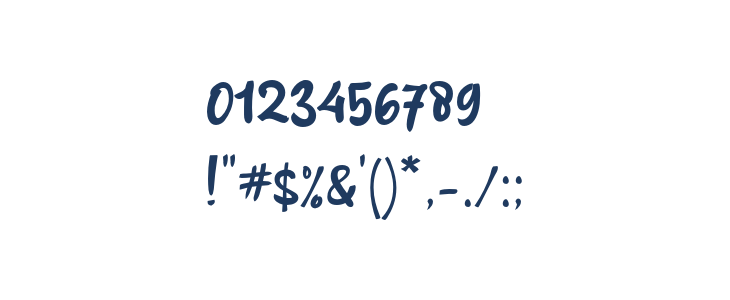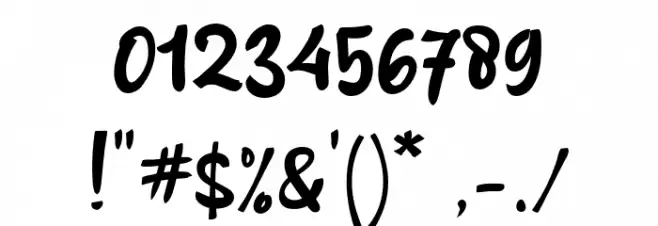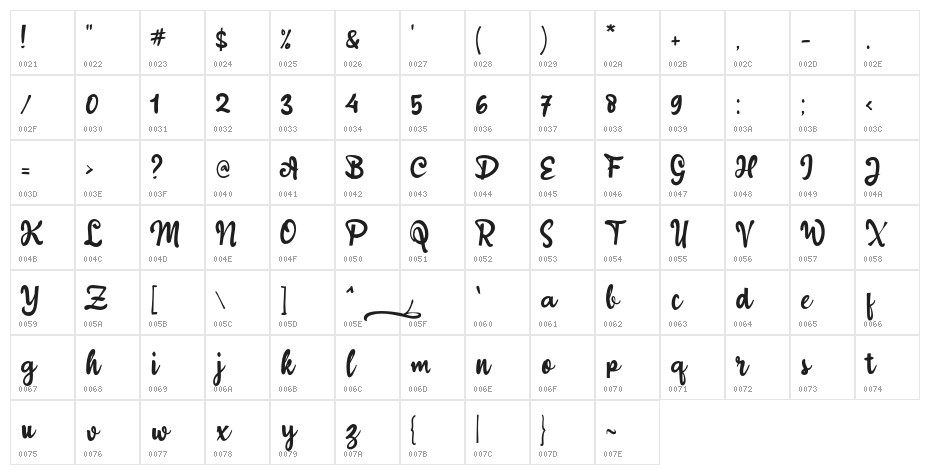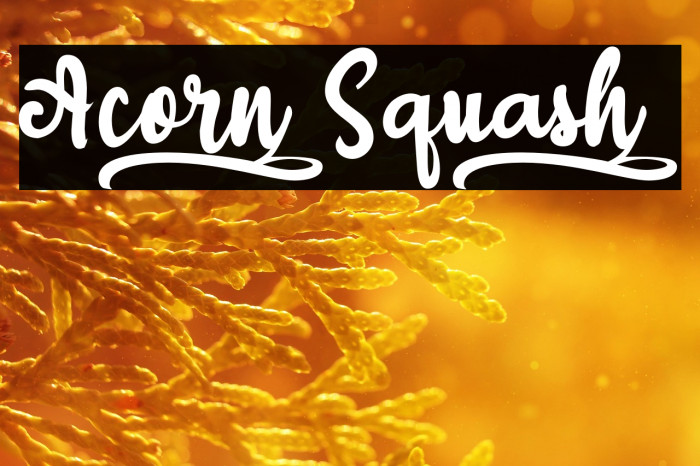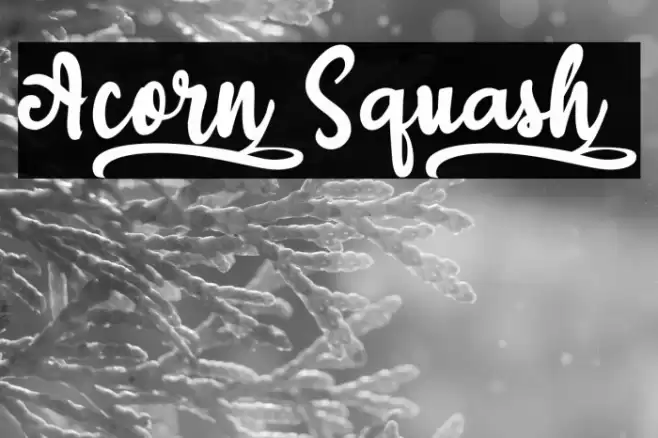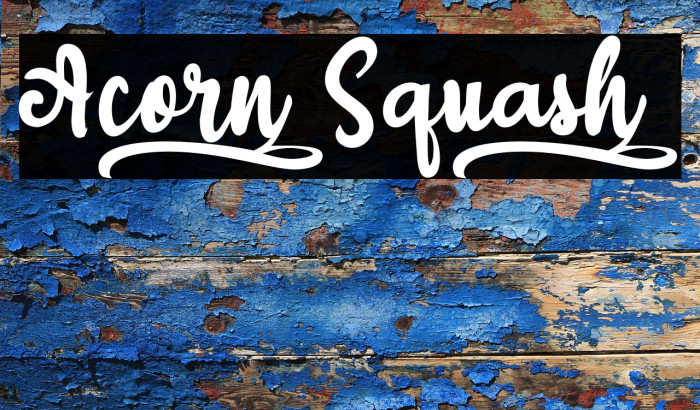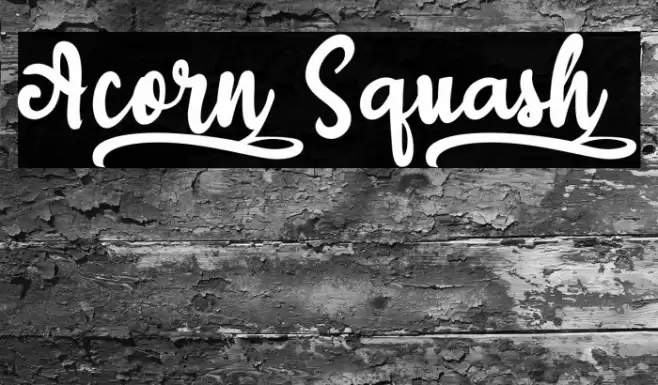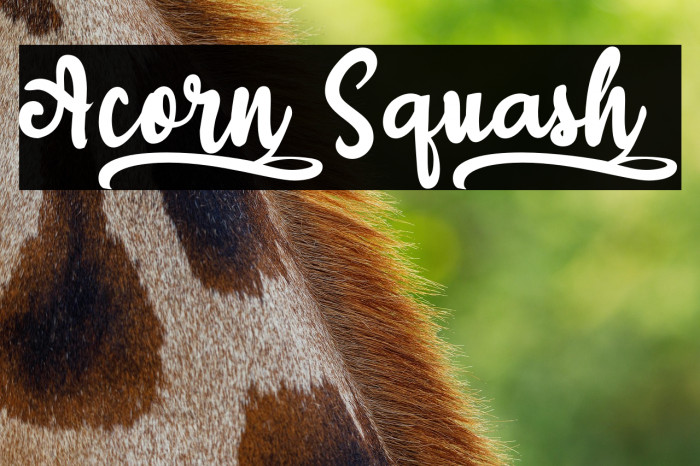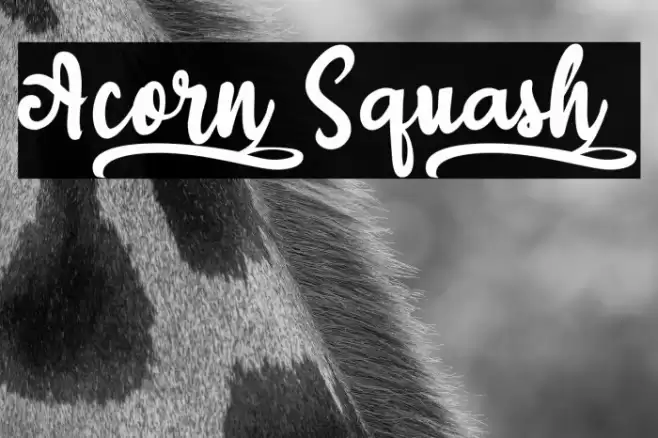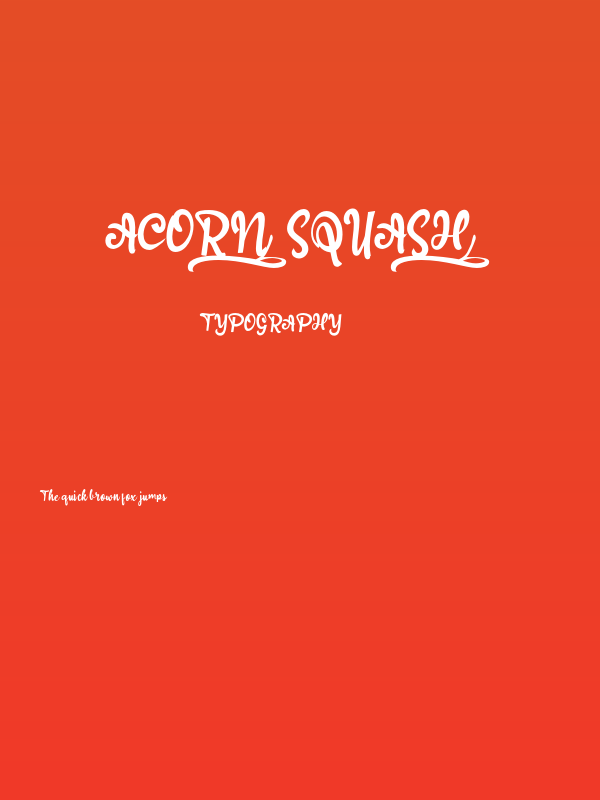
Acorn_Squash_ Font
Acorn_Squash_ Description
This font features a playful and dynamic script style with a handwritten feel. The letters are bold and slightly slanted, giving them an energetic and lively appearance. The strokes are thick and consistent, with rounded edges that add to the font's friendly and approachable character. The uppercase letters are distinct and easily readable, while the lowercase letters maintain a cohesive flow, making it suitable for both formal and informal designs. The numbers and special characters are crafted to match the overall style, ensuring uniformity across all text elements. This font is ideal for projects that require a personal touch, such as invitations, greeting cards, and branding materials.
| Overall Style | Playful, Handwritten |
| Proposed Projects | Ideal for invitations, greeting cards, branding materials, and playful designs. |